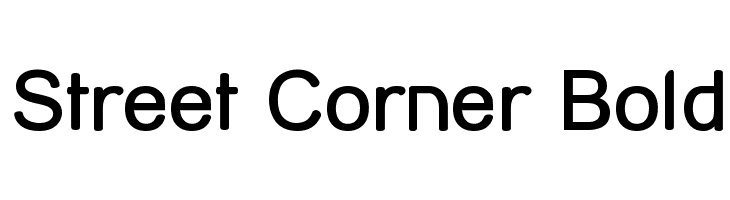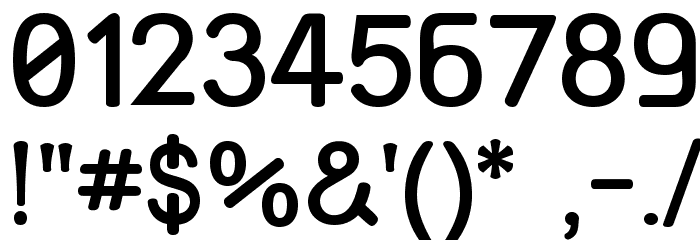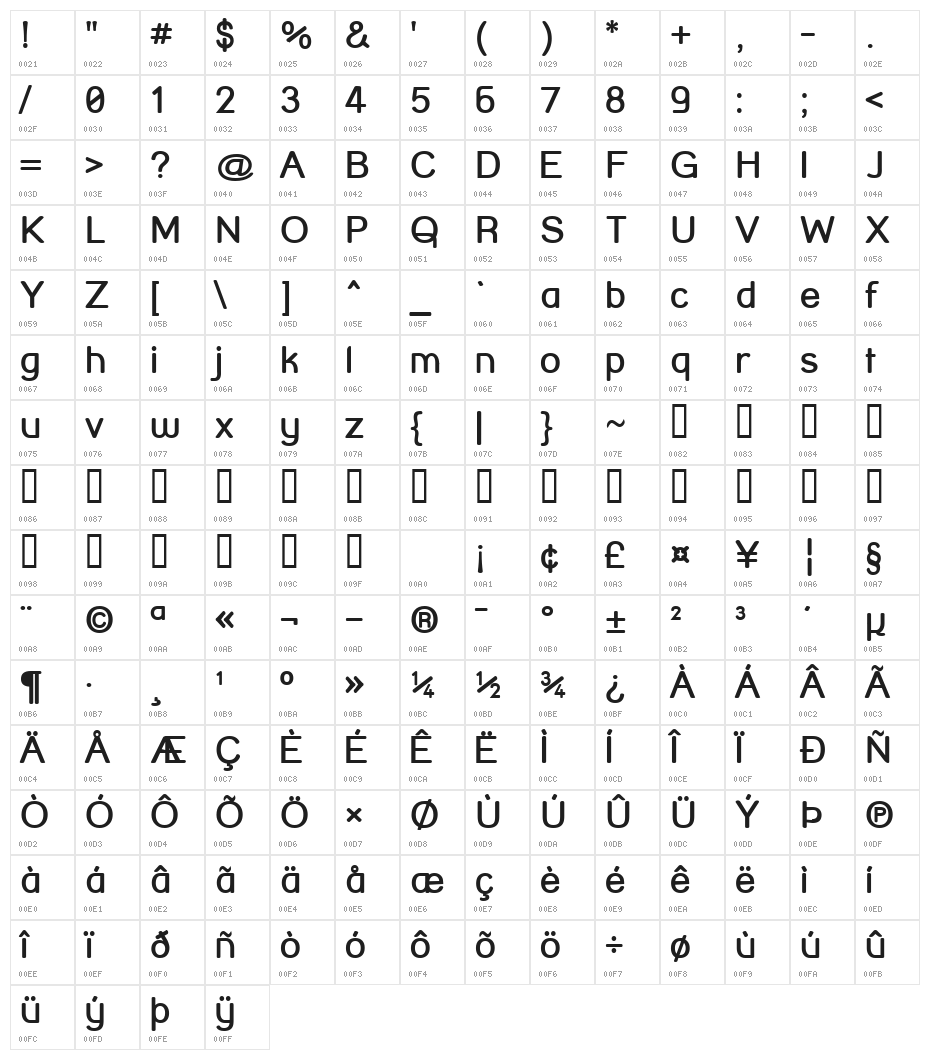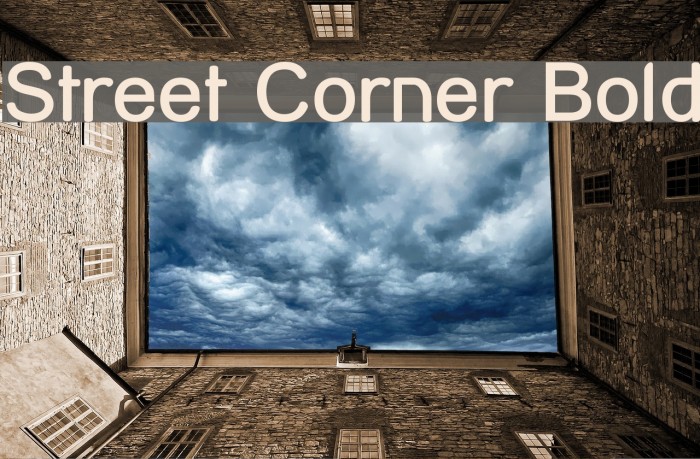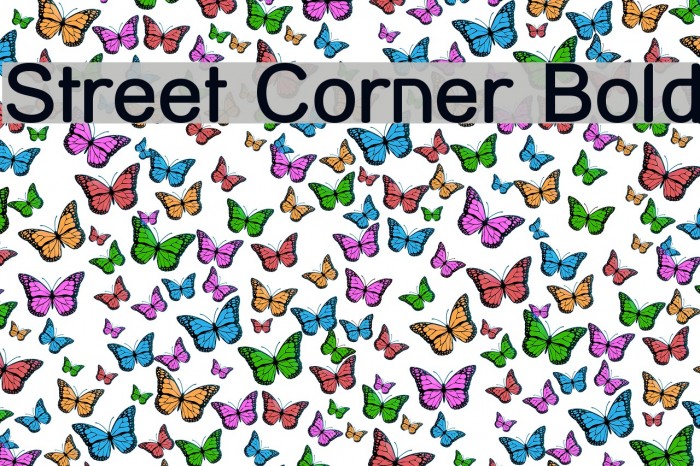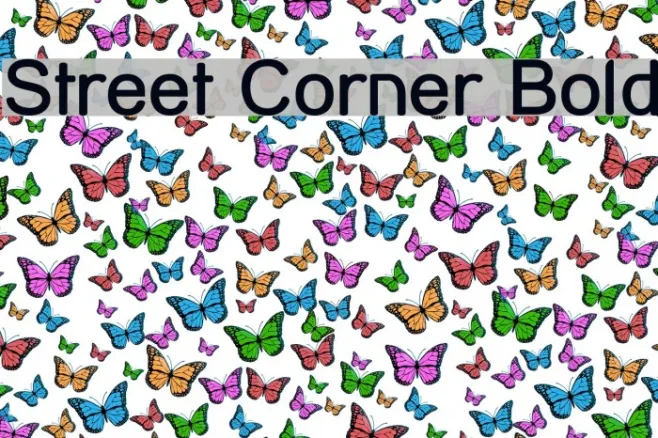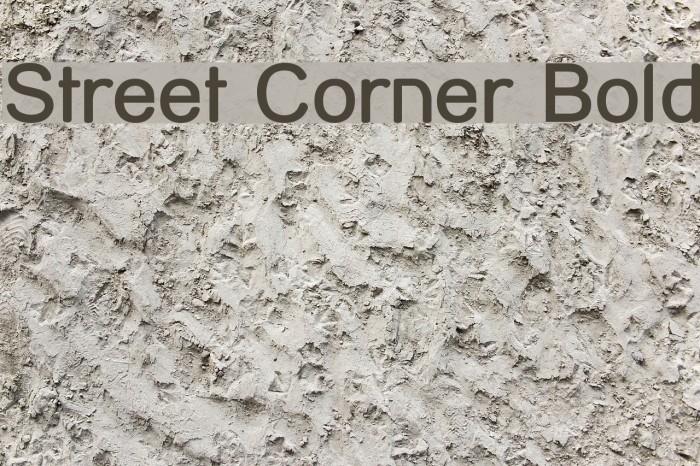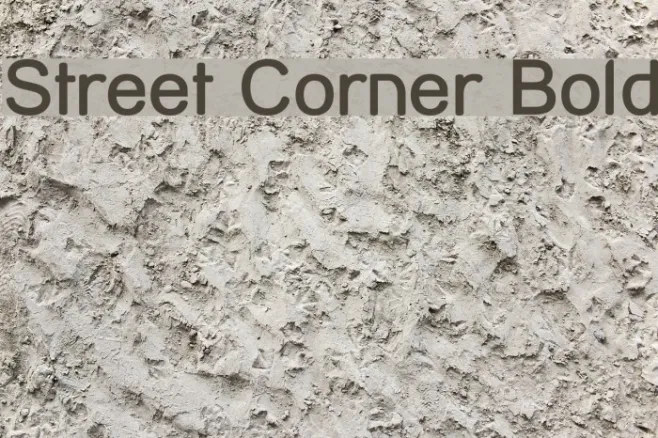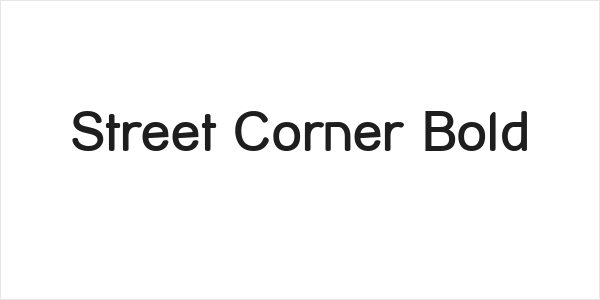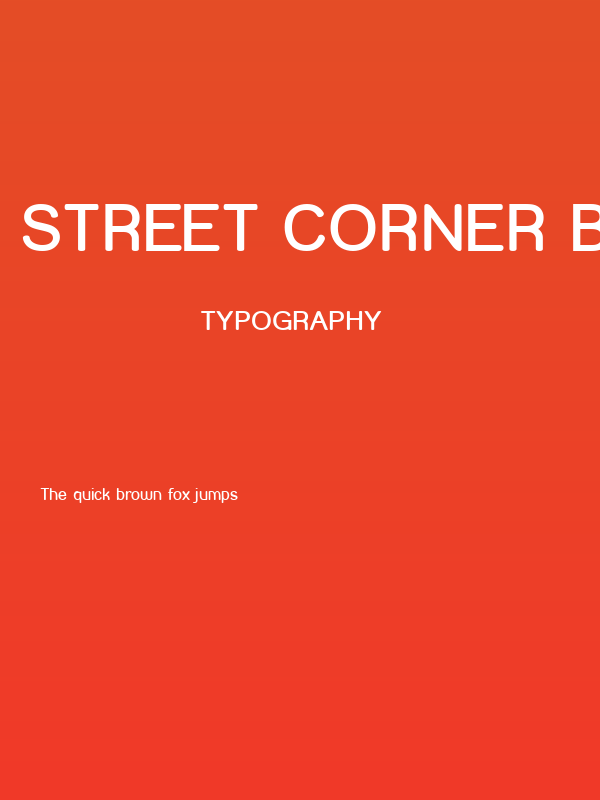
Street Corner Bold Font
Street Corner Bold Description
This font features a bold, rounded sans-serif style with clean lines and a modern aesthetic. The characters are evenly spaced, providing a balanced and harmonious appearance. The uppercase letters are uniform in height, while the lowercase letters maintain a consistent baseline, enhancing readability. The numerals are clear and distinct, making them suitable for various applications. The special characters are well-defined, adding versatility to the font's usage. Overall, this font exudes a contemporary feel, making it ideal for digital and print media.
| Use Case | Headlines, Logos, Digital media |
| Proposed Projects | Ideal for branding, advertising, digital media, and print design projects. |